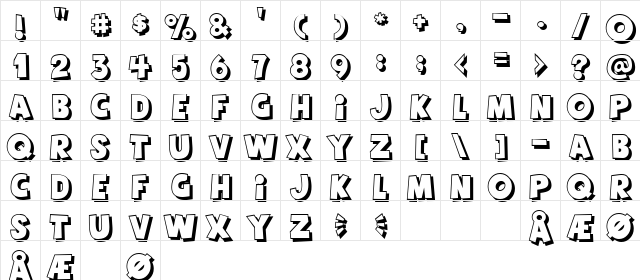
Agent Red Regular Font Preview
Agent Red Regular
Design Context for Agent Red Typeface
Agent Red is a composed and adaptable typeface that performs quietly and consistently across a wide range of design contexts.